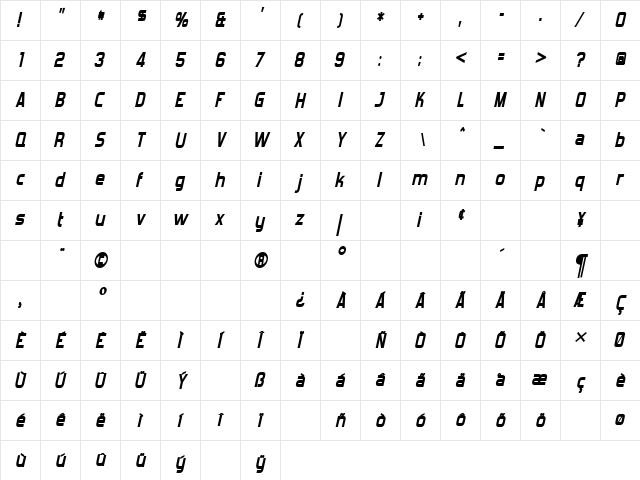
Forgotten Futurist Bold Italic
Bold Italic ·  Ray Larabie ·
Design Context for Forgotten Futurist Typeface
Forgotten Futurist channels digital-age aesthetics through its sharp, structured letterforms — ideal for brands that want to signal innovation. The dynamic lean of this cut emphasises speed and emphasis in any layout. Its bold stroke weight gives it real presence on the page.